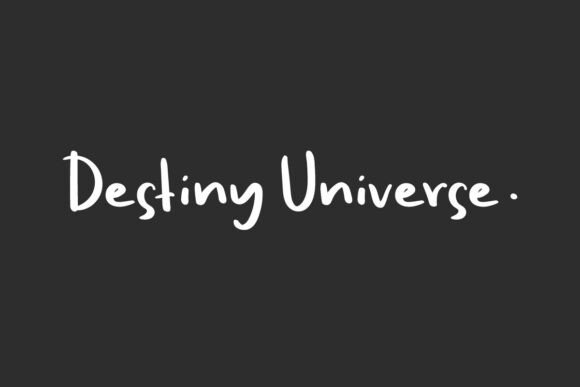
Destiny Universe Font: The Cute and Playful Comic Handwriting Font
The Destiny Universe Font is a delightful and charming comic handwriting font that has captured the hearts of designers and artists alike. This adorable font is perfect for those who want to add a touch of playfulness and natural handmade style to their projects. In this article, we will explore the features and benefits of the Destiny Universe Font, and how it can be used in various industries.
What is Destiny Universe Font?
Destiny Universe Font is a unique and creative font that is designed to resemble a child’s handwriting. It has a cute and playful appearance that makes it perfect for projects that require a friendly and approachable tone. The font has a natural, handmade quality that gives it a distinctive charm.
Key Features of Destiny Universe Font
- Cute and Playful Design: The Destiny Universe Font has a delightful and charming design that is sure to capture the attention of your audience.
- Natural Handmade Style: The font has a natural, handmade quality that gives it a distinctive charm.
- Highly Versatile: The Destiny Universe Font is suitable for a wide range of projects, from accessories and advertisement to publishing and more.
- Easily Readable: The font is designed to be easily readable, making it perfect for body text and headings.
Industries That Can Benefit from Destiny Universe Font
The Destiny Universe Font is a highly versatile font that can be used in a wide range of industries. Here are some of the industries that can benefit from using this font:
Industries That Can Use Destiny Universe Font
- Accessories: The Destiny Universe Font is perfect for designing labels, packaging, and marketing materials for accessories such as jewelry, hats, and scarves.
- Advertisement: The font’s playful and charming design makes it ideal for use in advertisements, flyers, and brochures.
- Author and Writer: The Destiny Universe Font is a great choice for authors and writers who want to add a personal touch to their book covers, manuscripts, and marketing materials.
- Bakery and Pastry: The font’s cute and playful design makes it perfect for use in bakery and pastry branding, packaging, and marketing materials.
- Cafe: The Destiny Universe Font is a great choice for cafes that want to create a friendly and welcoming atmosphere.
- Fashion: The font’s stylish and modern design makes it ideal for use in fashion branding, marketing materials, and packaging.
- Handicrafts: The Destiny Universe Font is perfect for designers and makers who want to add a personal touch to their handmade products.
- Kids Stuff: The font’s playful and charming design makes it ideal for use in children’s products, such as toys, games, and educational materials.
- Printing and Publishing: The Destiny Universe Font is a great choice for printers and publishers who want to add a touch of personality to their materials.
Benefits of Using Destiny Universe Font
The Destiny Universe Font offers a range of benefits for designers, artists, and businesses. Here are some of the benefits of using this font:
Benefits of Using Destiny Universe Font
- Unique and Creative Design: The Destiny Universe Font has a unique and creative design that sets it apart from other fonts.
- Easy to Read: The font is designed to be easily readable, making it perfect for body text and headings.
- Highly Versatile: The Destiny Universe Font is suitable for a wide range of projects and industries.
- Time-Saving: The font is pre-designed, saving you time and effort in designing your own font from scratch.
- Cost-Effective: The Destiny Universe Font is a cost-effective solution for designers and businesses who want to add a touch of personality to their projects.
How to Use Destiny Universe Font
Using the Destiny Universe Font is easy and straightforward. Here are some tips on how to use the font:
Tips on How to Use Destiny Universe Font
- Use it for Headings and Titles: The Destiny Universe Font is perfect for use in headings and titles, where you want to add a touch of personality and whimsy.
- Pair it with Other Fonts: The font can be paired with other fonts to create a unique and creative design.
- Use it for Body Text: The Destiny Universe Font is easy to read, making it suitable for use in body text.
- Experiment with Different Colors: The font can be used with different colors to create a unique and eye-catching design.
The Destiny Universe Font is a delightful and charming comic handwriting font that is perfect for designers, artists, and businesses who want to add a touch of personality and whimsy to their projects. With its cute and playful design, natural handmade style, and high versatility, this font is suitable for a wide range of industries and projects. Whether you’re looking to create a unique and creative design or simply want to add a touch of personality to your project, the Destiny Universe Font is a great choice.